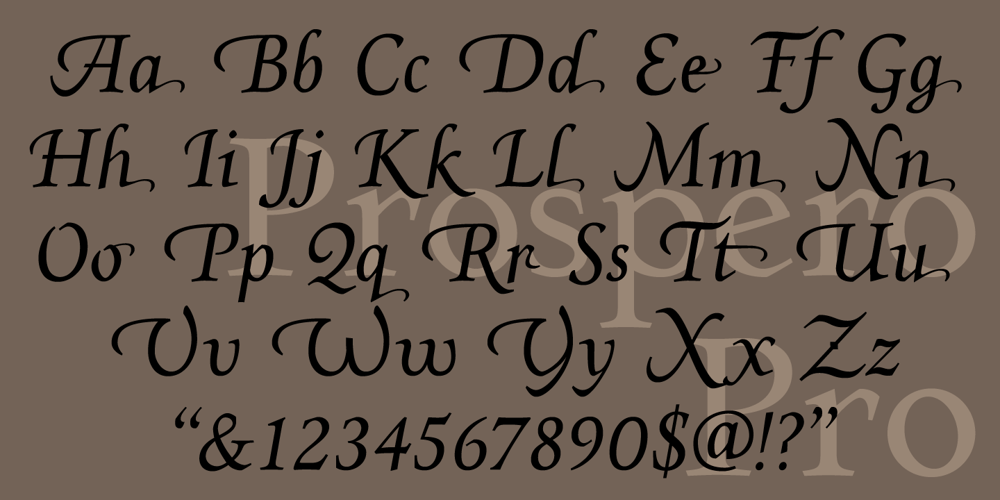
Prospero Pro
Prospero Pro font
Prospero Pro Font Family was designed by Tim Rolands and published by Tim Rolands. Prospero Pro contains 2 styles and family package options. Prospero Pro is a brand new OpenType remake of Prospero, originally released by Tim Rolands in 1997. This new version includes completely redrawn letterforms that capture the character and spirit of the original while incorporating many improvements born of experience. The outlines are cleaner, scale better and have a much more even color, and the glyph set now includes numerous extended ligatures, alternate forms, swash forms and support for many languages. An elegant face inspired first and foremost by the early Romans of Nicolas Jenson, Prospero Pro is infused with a personality all its own and ready for a wide range of text and display work: books, magazines, cards, posters, advertising, branding, identity systems and much more.